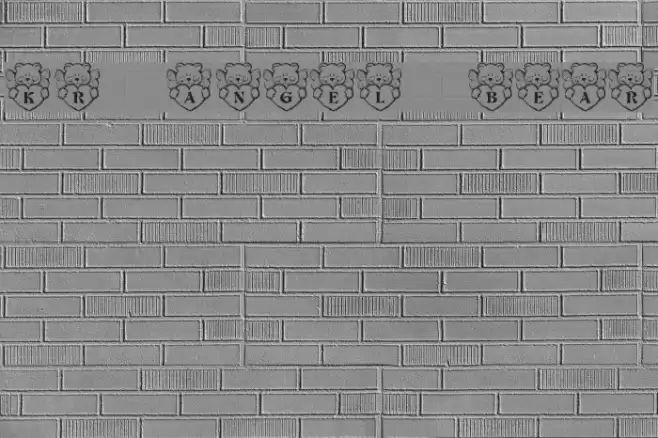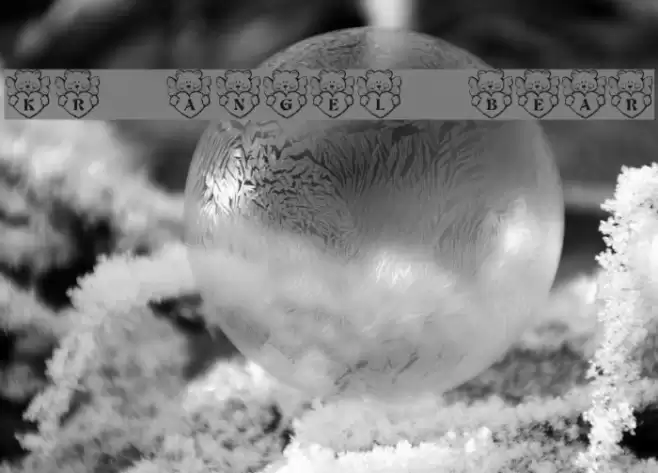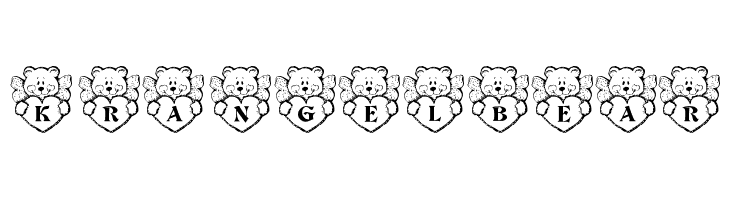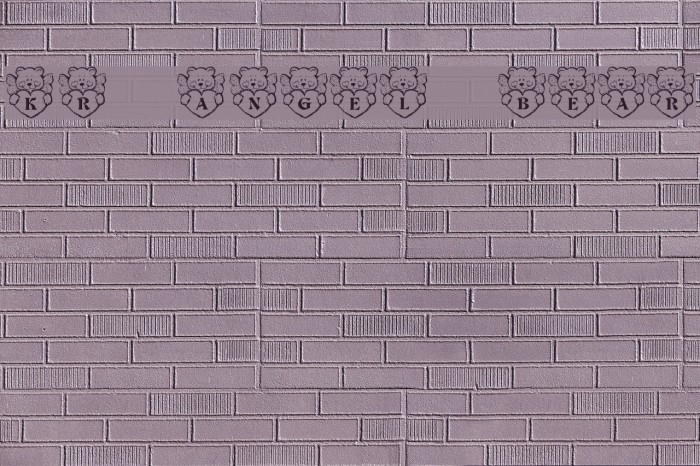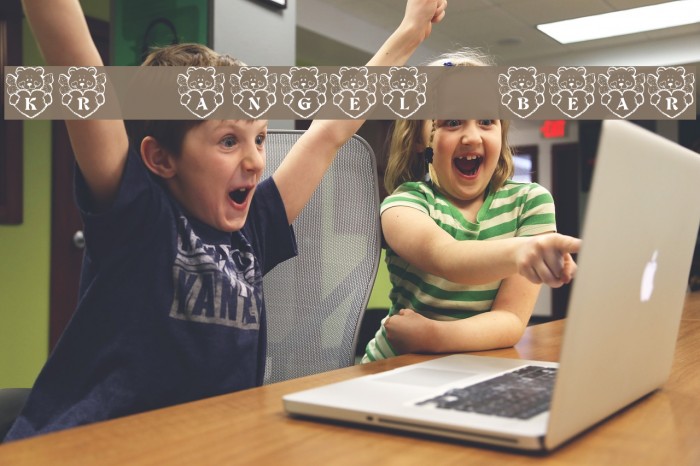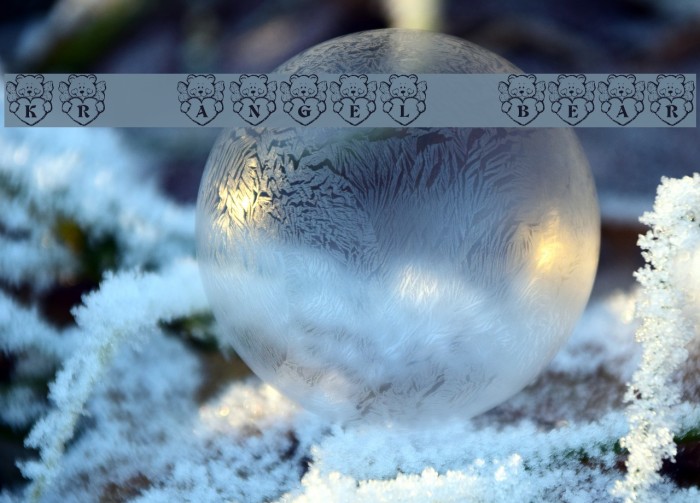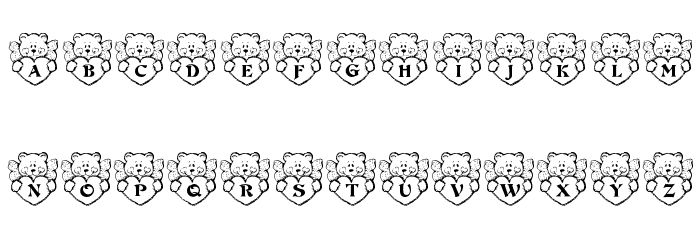
KR Angel Bear Font
KR Angel Bear Description
This decorative font features uppercase letters encased within a charming bear design, giving each character a playful and whimsical appearance. The bears are detailed with angelic wings, adding a unique and endearing touch. The letters themselves are bold and clear, ensuring readability despite the intricate design. This font does not include lowercase letters, numbers, or special characters, focusing solely on the uppercase alphabet. The overall aesthetic is cute and friendly, making it suitable for child-related projects or playful designs.
A whimsical font with uppercase letters encased in angelic bear designs from Uncategorized fonts.
- Proposed Projects: Ideal for children's books, playful greeting cards, nursery decor, and whimsical branding.
- Overall Style: Playful, Whimsical
- Use Case: Headlines, Logos, Decorative text